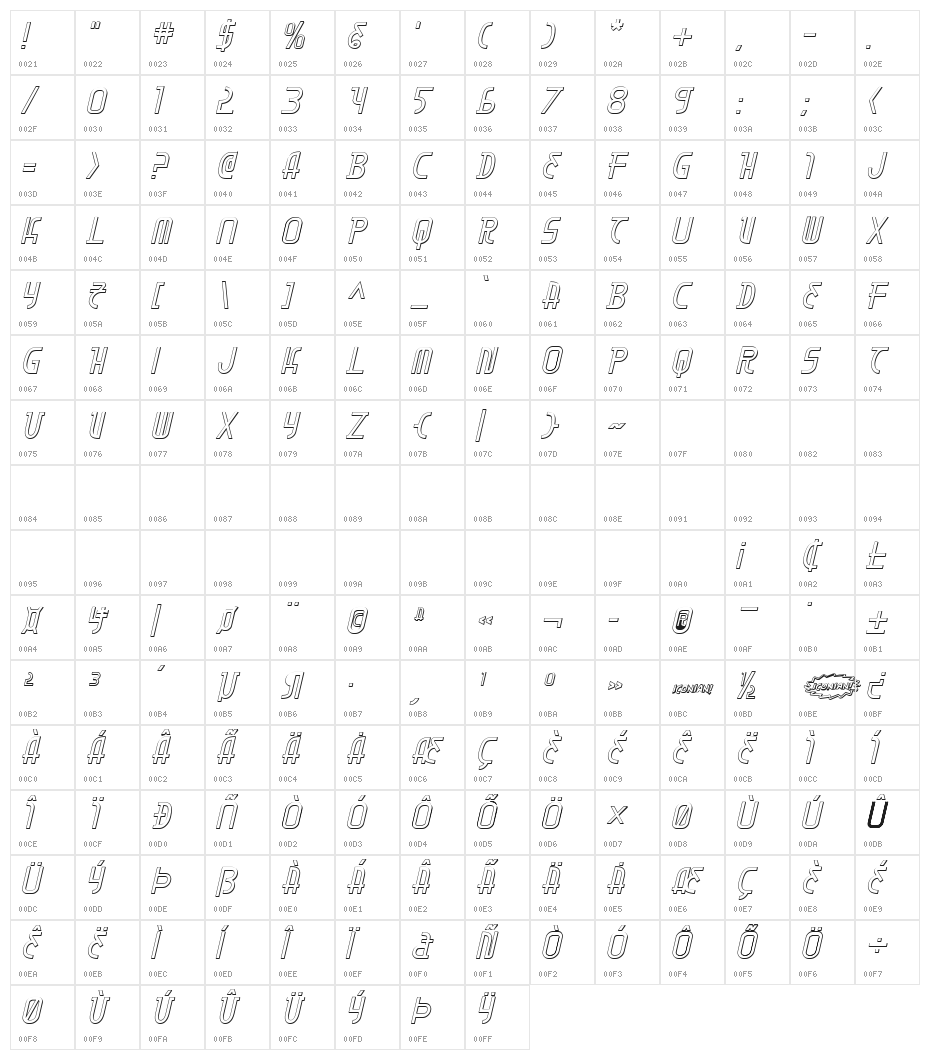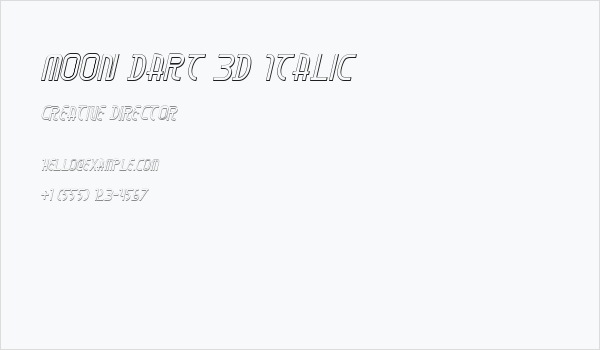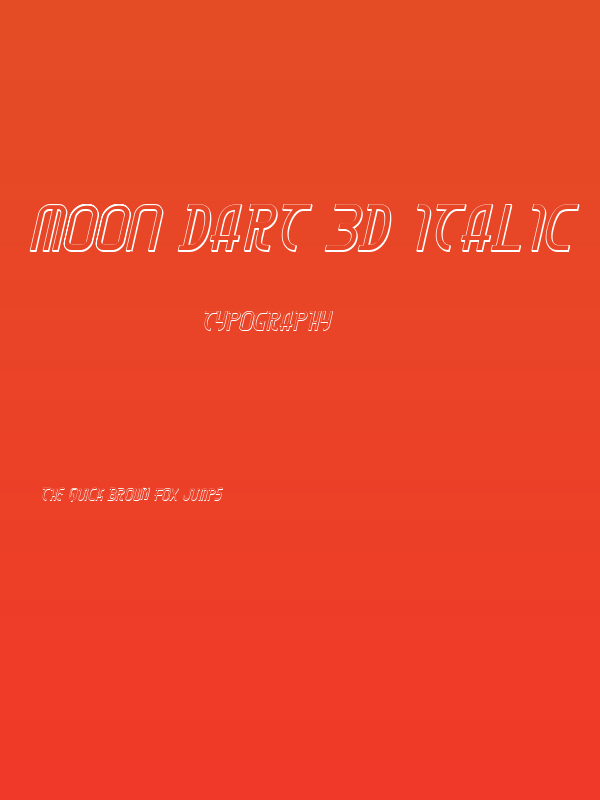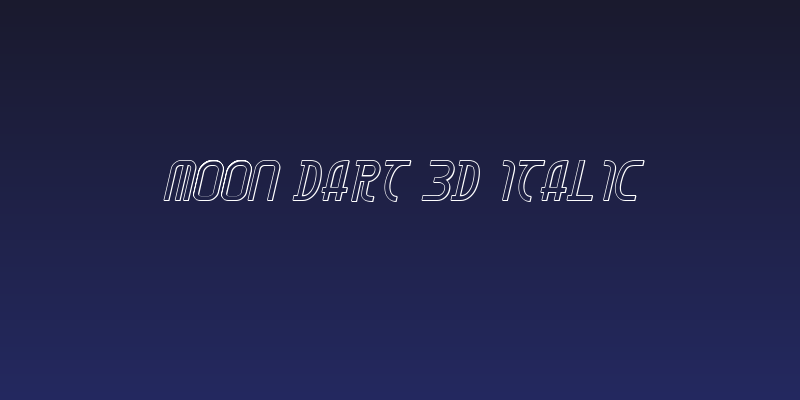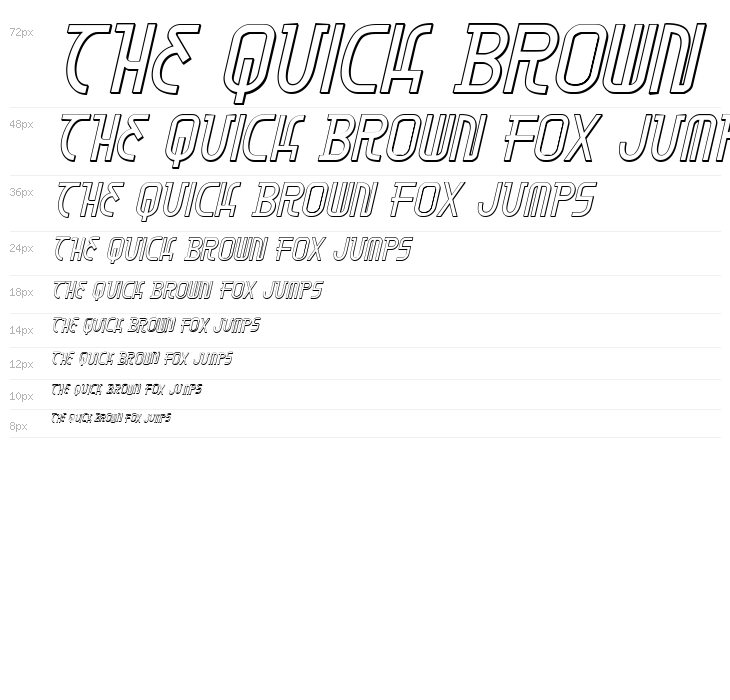
Moon Dart 3D Italic Font
Moon Dart 3D Italic Description
This font features a bold, three-dimensional design with an italic slant, creating a dynamic and futuristic appearance. The letters are outlined, giving them a hollow look that enhances the 3D effect. Each character has a consistent stroke width, contributing to a uniform and cohesive style. The angular and geometric shapes of the letters add a modern and edgy feel, making it suitable for projects that require a contemporary and eye-catching typeface. The font includes a full set of uppercase and lowercase letters, numbers, and a variety of special characters, ensuring versatility for different design needs.
Proposed ProjectsIdeal for sci-fi themed posters, video game titles, tech branding, and modern advertising campaigns.